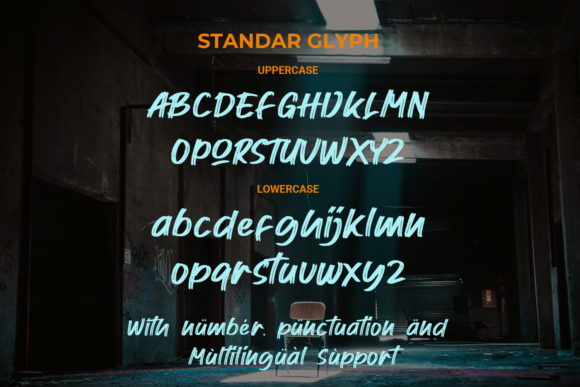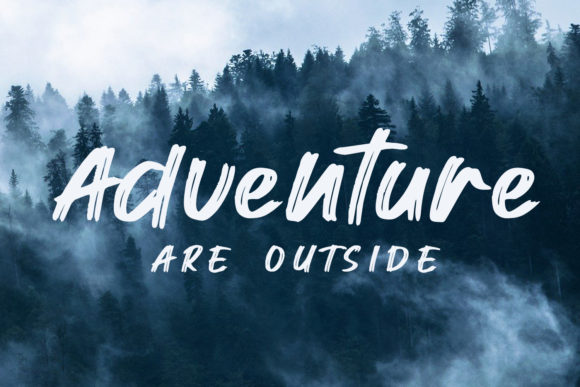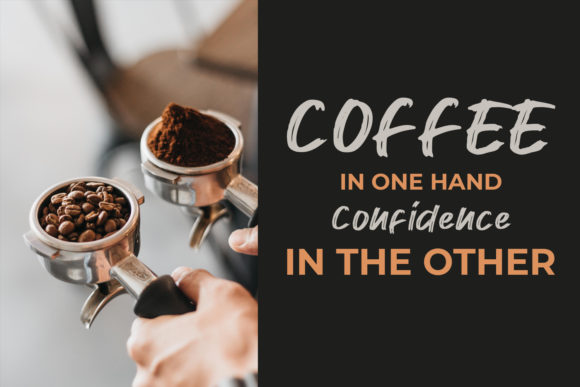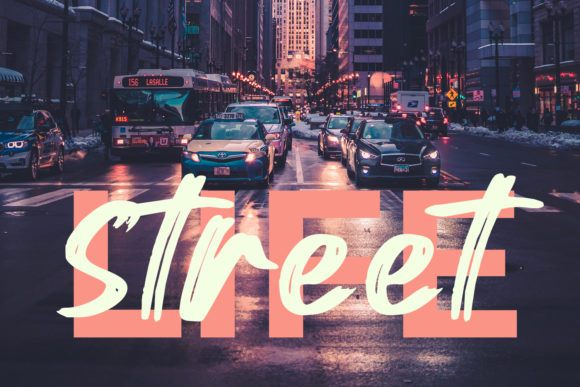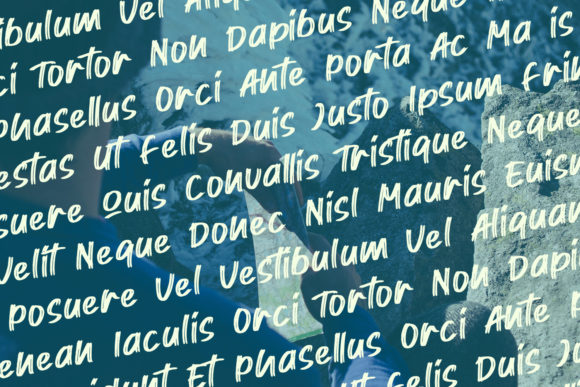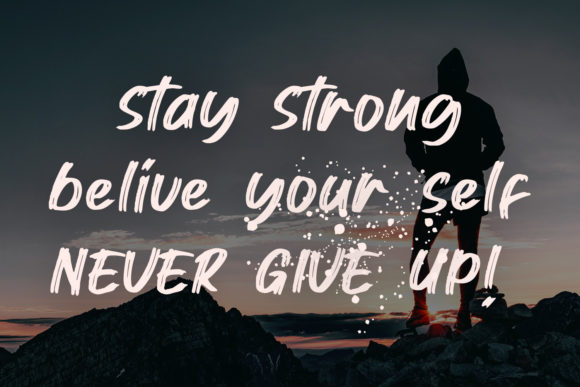
Introducing Brushor Font: The Ultimate Brushed Display Font for Creative Projects
Are you a designer or crafter looking for a unique and versatile font to elevate your creative projects? Look no further than Brushor Font, a cool and stylish brushed display font that’s perfect for a wide range of applications. In this article, we’ll take a closer look at Brushor Font, its features, and how it can be an incredibly valuable asset to your font library.
What is Brushor Font?
Brushor Font is a modern, brushed display font that’s designed to add a touch of personality and style to your creative projects. Its unique, hand-brushed look gives it a distinctive feel that’s both modern and nostalgic. Whether you’re working on a logo, poster, social media graphic, or any other type of design project, Brushor Font is the perfect choice.
Key Features of Brushor Font
So, what makes Brushor Font so special? Here are just a few of its key features:
- Unique Brushed Look: Brushor Font features a distinctive, hand-brushed look that’s unlike any other font on the market.
- Highly Versatile: Whether you’re working on a logo, poster, or social media graphic, Brushor Font is the perfect choice.
- Easy to Read: Despite its brushed look, Brushor Font is highly legible and easy to read, even at small sizes.
- Wide Range of Applications: From branding and advertising to packaging and more, Brushor Font is the perfect choice for any project that requires a stylish, eye-catching font.
Benefits of Using Brushor Font
So, why should you choose Brushor Font for your next project? Here are just a few benefits of using this amazing font:
- Elevate Your Designs: With its unique, hand-brushed look, Brushor Font can help take your designs to the next level and make them stand out from the crowd.
- Save Time: With Brushor Font, you can create professional-looking designs in no time, without having to spend hours searching for the perfect font.
- Increase Engagement: Brushor Font is designed to grab attention and draw the eye, making it perfect for projects that require high engagement and interaction.
How to Use Brushor Font
- Pair it with Other Fonts: Brushor Font pairs perfectly with a wide range of other fonts, so don’t be afraid to experiment and find the perfect combination for your project.
- Experiment with Colors: Brushor Font looks great in a wide range of colors, so try experimenting with different hues and shades to find the perfect look for your project.
- Use it for Headlines and Titles: Brushor Font is perfect for headlines and titles, where its unique, hand-brushed look can really make an impact.
In conclusion, Brushor Font is a cool, stylish, and incredibly versatile brushed display font that’s perfect for a wide range of creative projects. With its unique, hand-brushed look, high legibility, and universal compatibility, Brushor Font is an incredibly valuable asset to any font library. Whether you’re a designer, crafter, or simply someone who loves to create, Brushor Font is the perfect choice for any project that requires a stylish, eye-catching font.